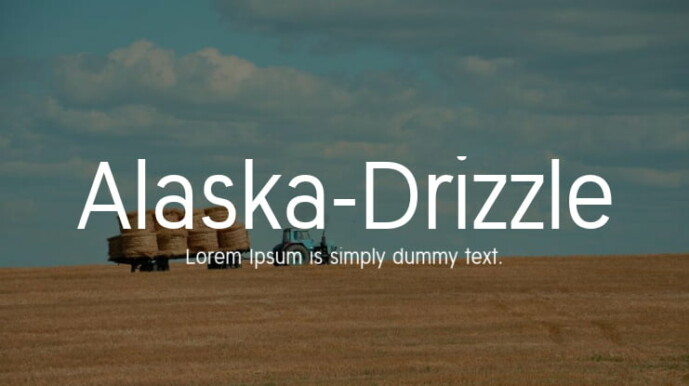
Alaska Drizzle Font
Alaska Drizzle Font is a stunning work of art. This stunning font looks great on branding, logos, social media, prints, shirts, product designs, websites, social media quotes, modern, and vintage designs, among other uses. These fonts feature unique designs that can be used for a variety of design styles.